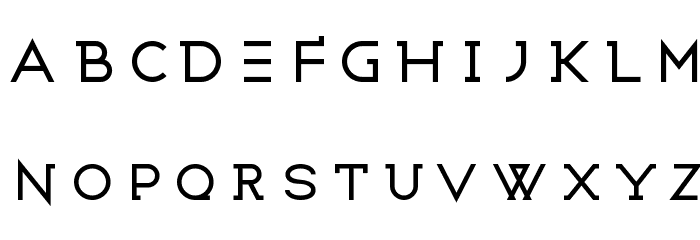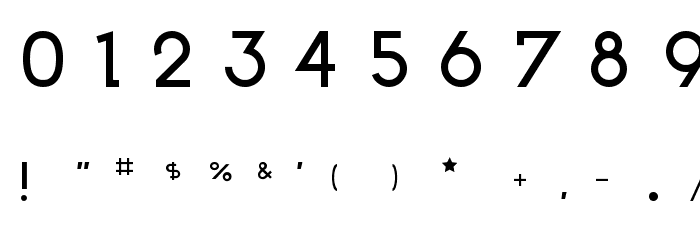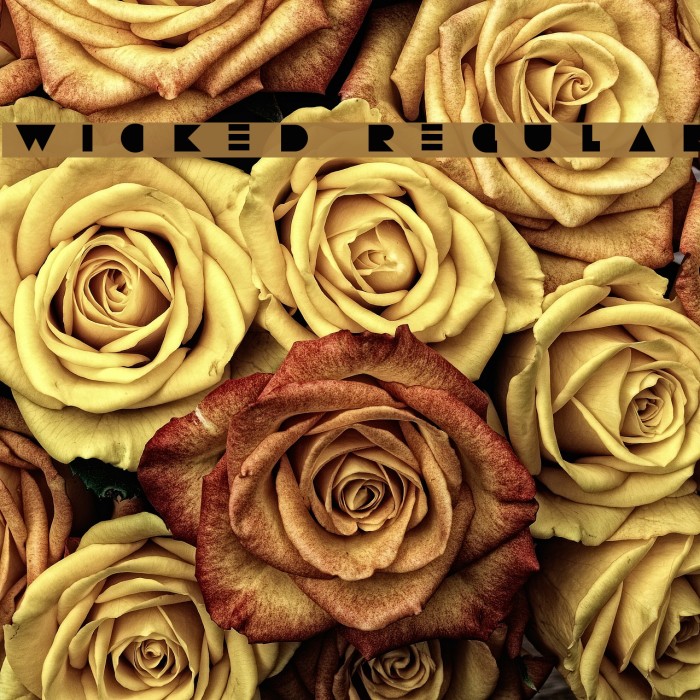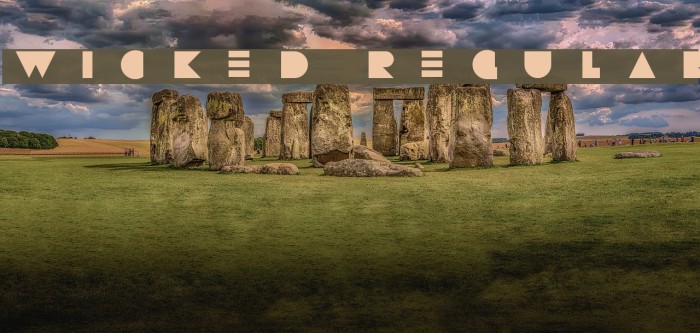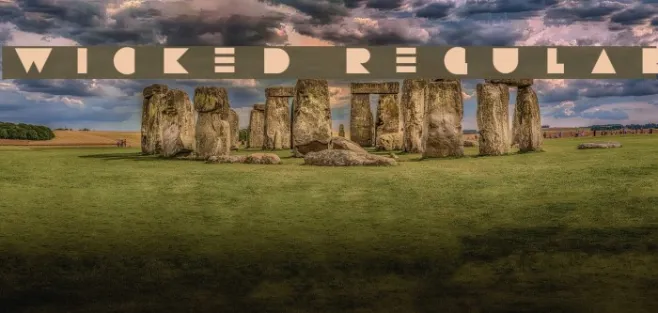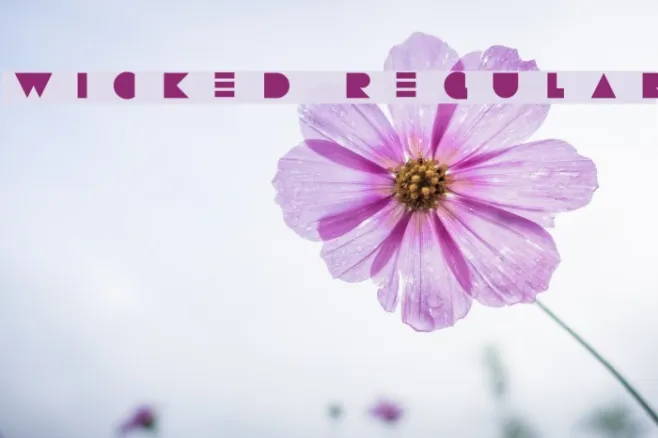
WICKED REGULAR Font
This font features a bold and striking design with geometric shapes and sharp angles. The uppercase letters exhibit a unique style, with some characters incorporating triangular and rectangular elements that create a modern and edgy appearance. The lowercase letters maintain a consistent geometric theme, offering a cohesive look across the alphabet. Numbers are designed with a similar aesthetic, ensuring uniformity throughout. Special characters are included, each crafted to match the overall style. This font is ideal for projects that require a bold and contemporary look, such as branding, posters, and digital media.
A bold, geometric font with sharp angles and a modern aesthetic.
- Proposed Projects: Ideal for branding, posters, digital media, and any project needing a bold, modern look.